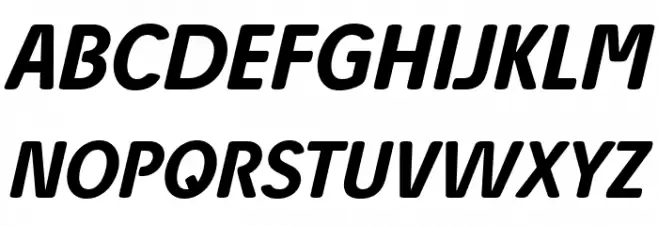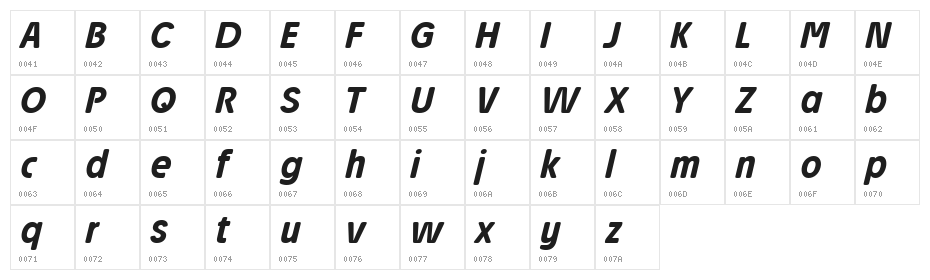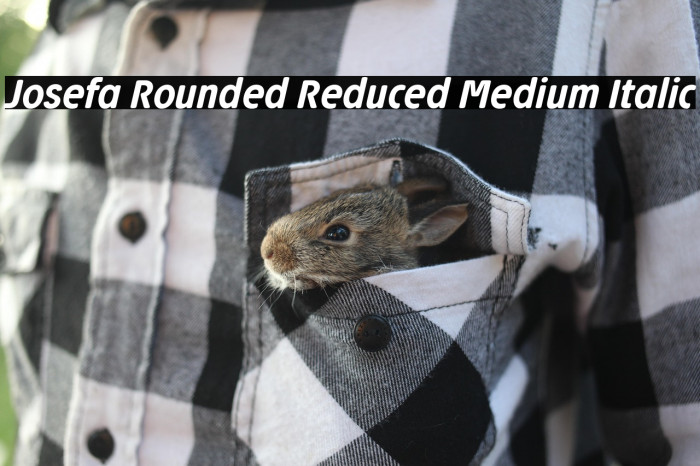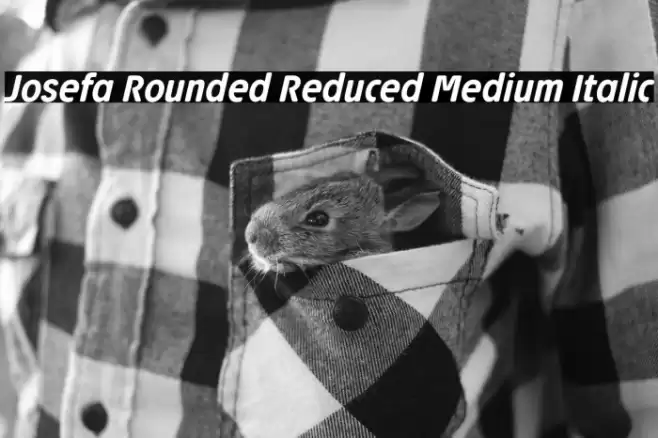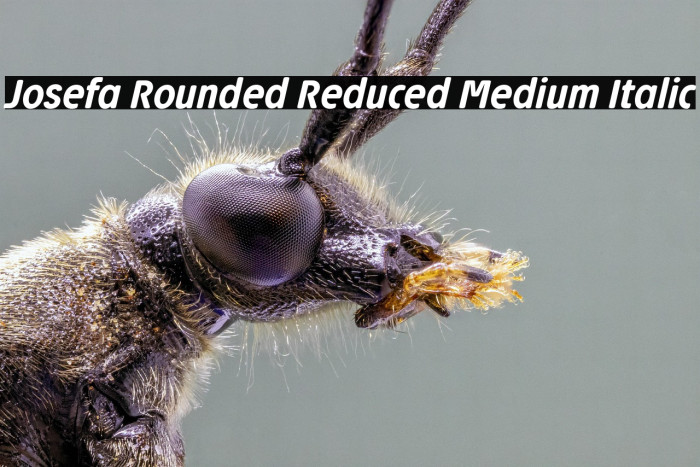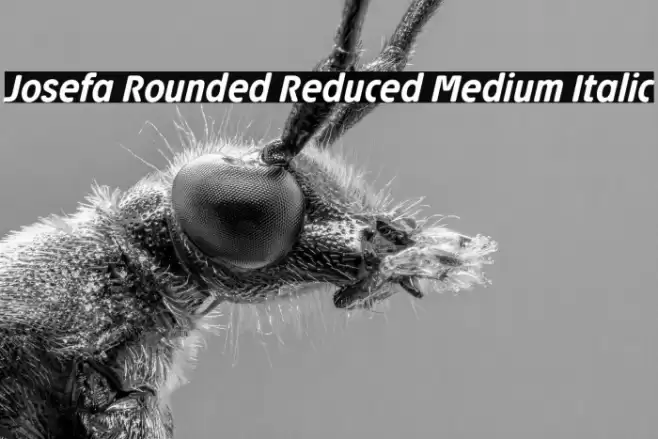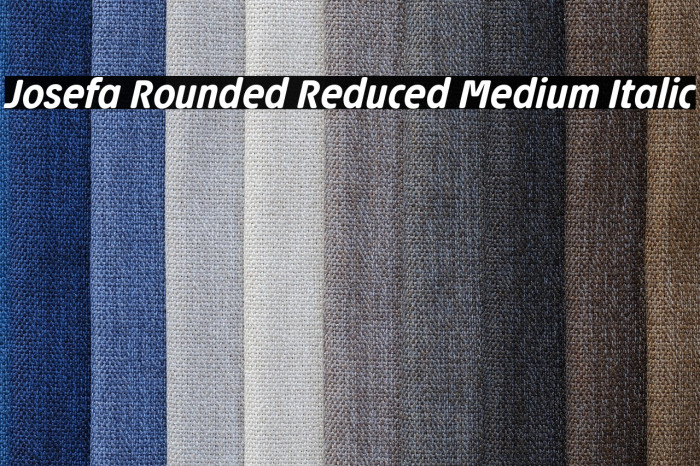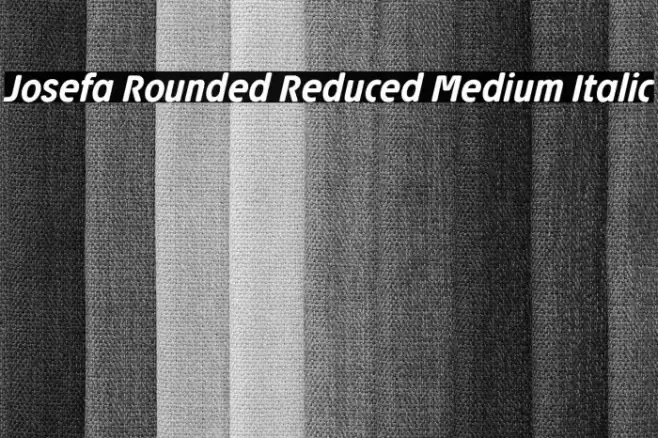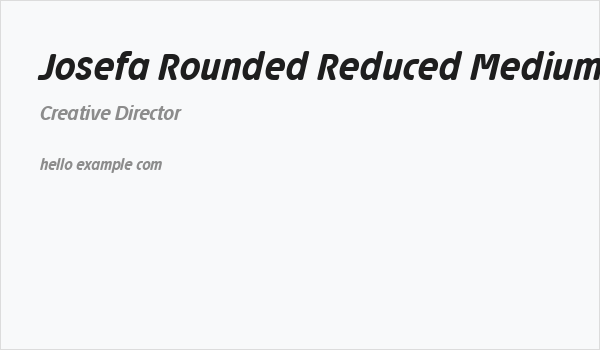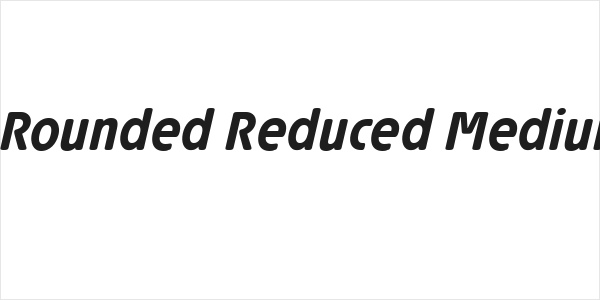
Josefa Rounded Reduced Medium Italic Font
Josefa Rounded Reduced Medium Italic Description
This font features a rounded, smooth design with a medium weight that gives it a friendly and approachable appearance. The italic style adds a sense of motion and dynamism, making it suitable for creative and modern applications. Its rounded edges soften the overall look, providing a warm and inviting feel. The characters are well-proportioned, ensuring readability while maintaining a stylish aesthetic. This font is versatile, suitable for both digital and print media, and can be used to convey a sense of modernity and approachability.
| Proposed Projects | Ideal for branding, advertising, packaging, and web design projects where a modern and approachable look is desired. |